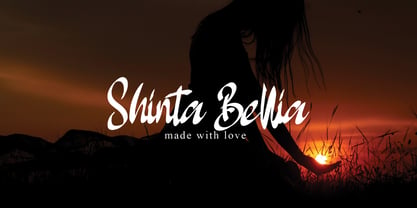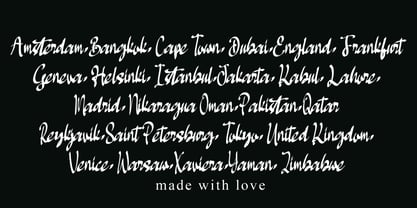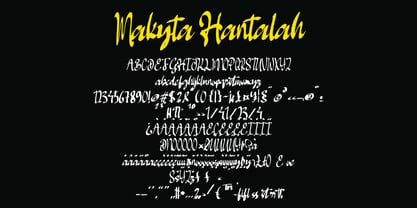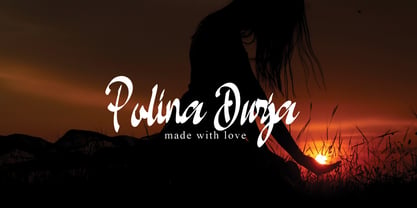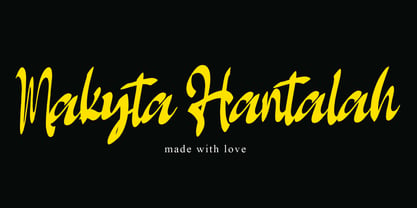
Makyta Hantalah
The Makyta Hantalah Font Family was designed by Dhoni Trihatmoko and published by Ayska. Makyta Hantalah contains 1 styles. More about this family
Succumb to the undeniable allure of Makyta Hantalah, a striking fusion of pioneering aesthetics and endearing hand-drawn calligraphy. This unique font effortlessly radiates an unmatched degree of sophistication, infusing artistic uniqueness into each application. With its impressive versatility, Makyta Hantalah can transform your digital canvas into an awe-inspiring tapestry of creativity, personalize your blog with its distinguished signature, or add a splash of typographic refinement to your handwritten reflections. Embrace the captivating magnetism of Makyta Hantalah and its limitless finesse. Whether applied to serene personal spaces or lively photography, it has the power to vivify and magnify each element it adorns, creating compelling viewer engagement. Immerse yourself in the hypnotic charm of Makyta Hantalah, your reliable beacon to a world bursting with innovative ideas and mesmerizing aesthetics. Let the Makyta Hantalah font become the catalyst for your creativity, converting your inspired vision into splendid digital artistry worthy of admiration.
Designers: Dhoni Trihatmoko